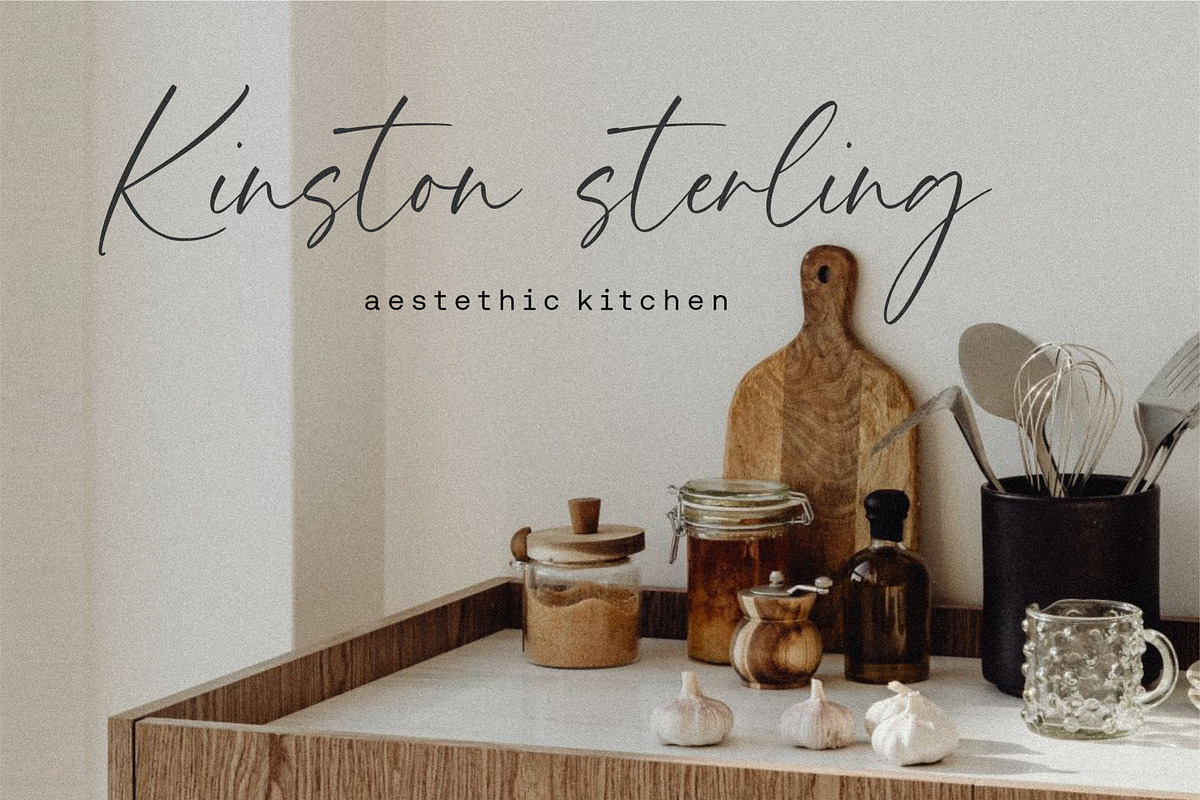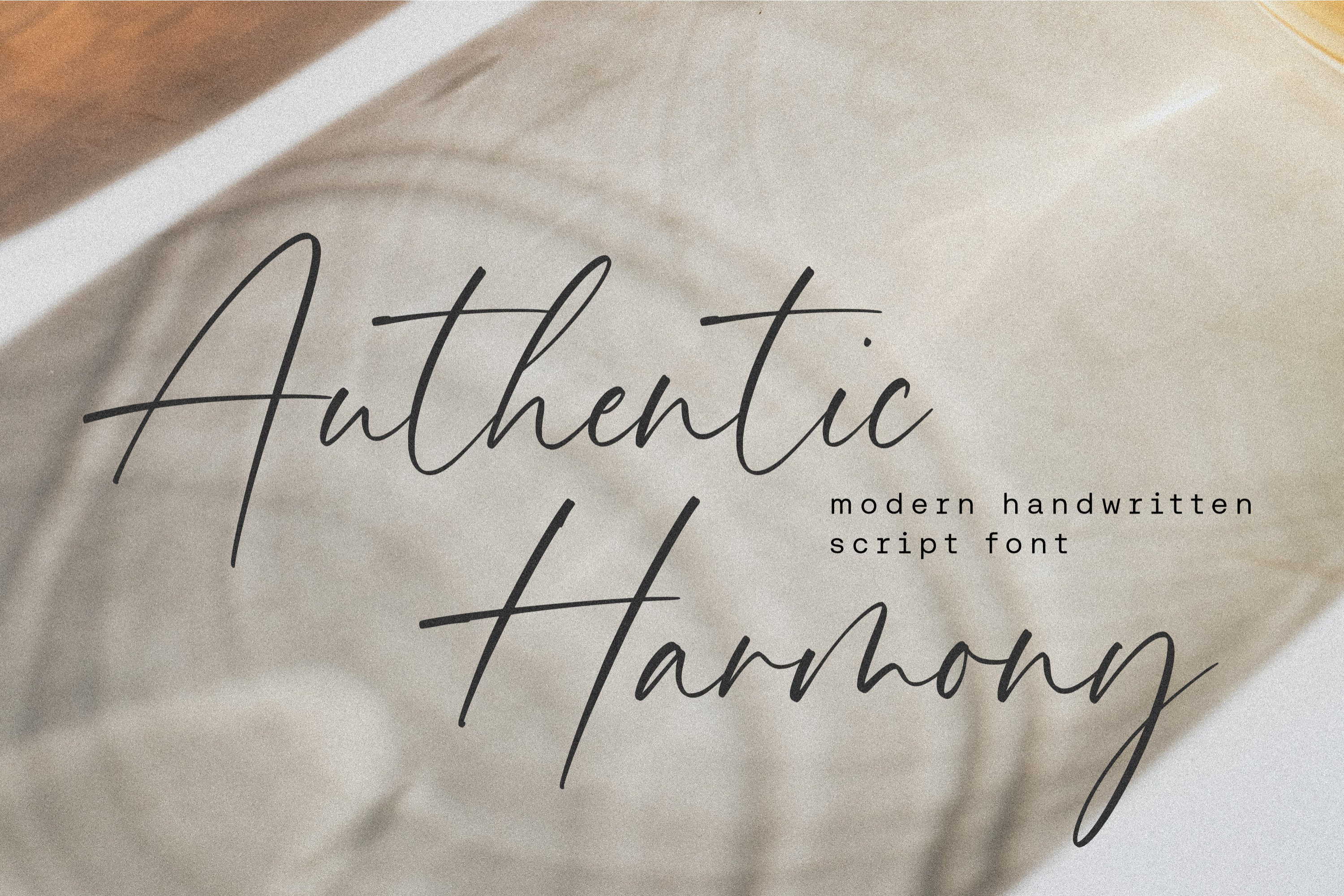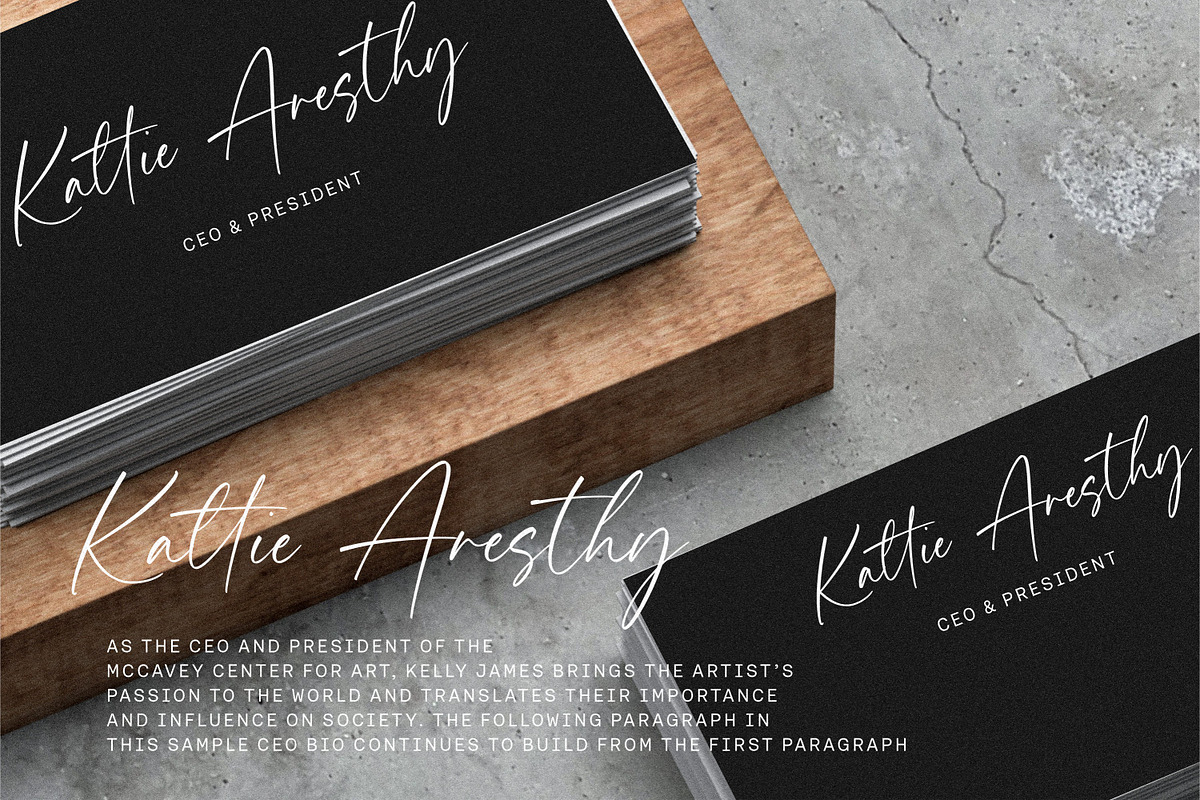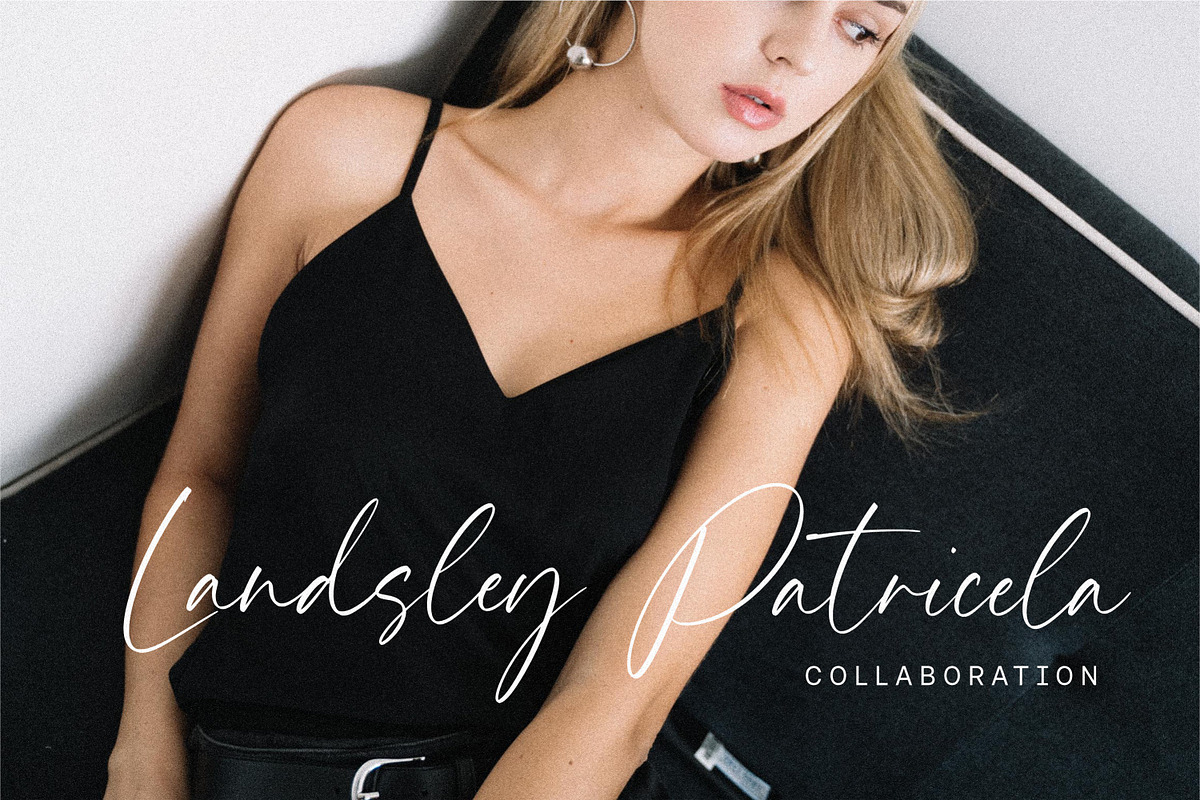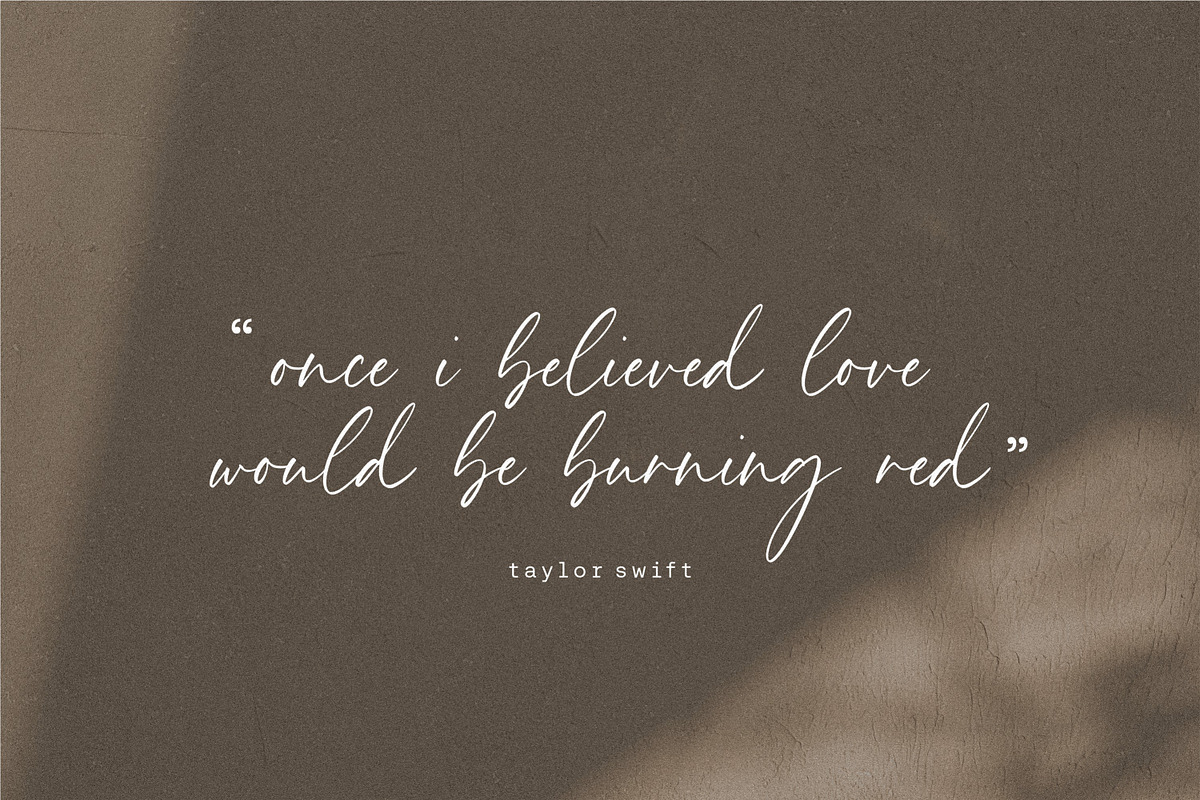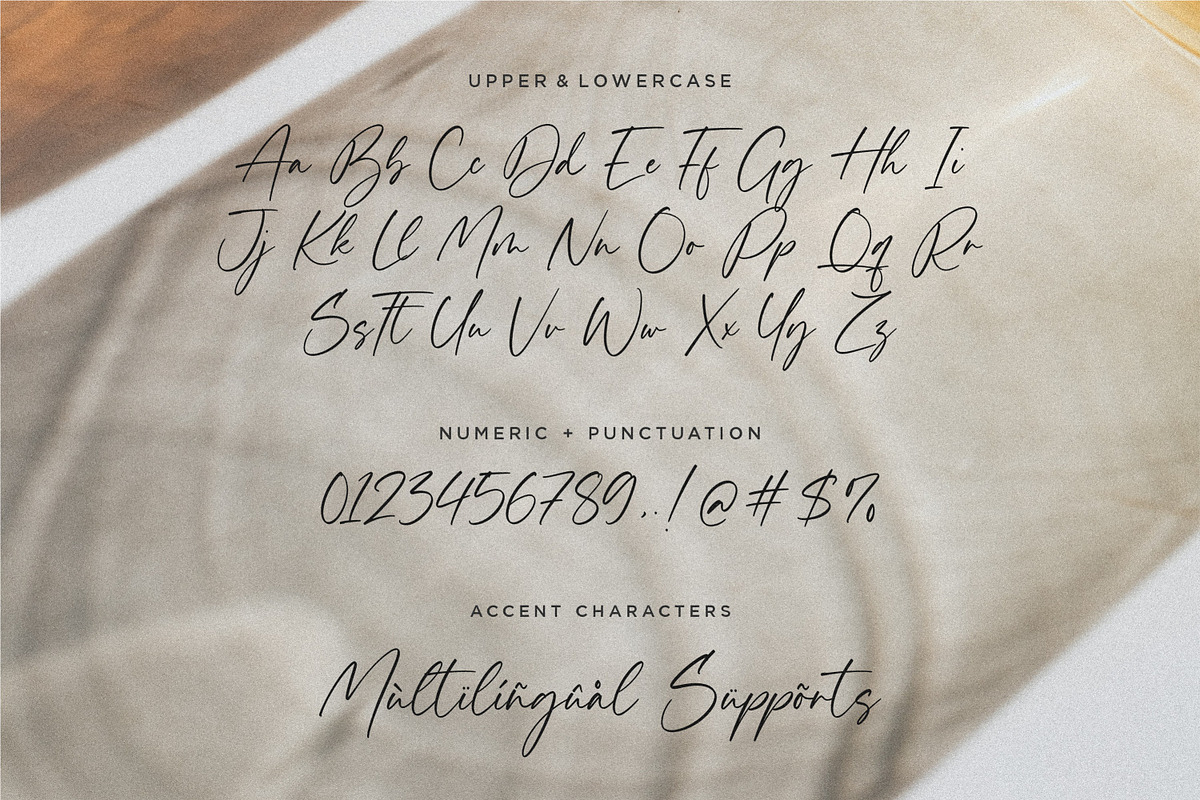
Authentic Harmony Font
Authentic Harmony is a Modern Handwritten Script Font.
Our Modern Handwritten Font brings a contemporary and chic touch to your design projects. Created with care and attention to detail, this font effortlessly combines the warmth and personal touch of handwriting with a clean and modern aesthetic.
- also multilingual support